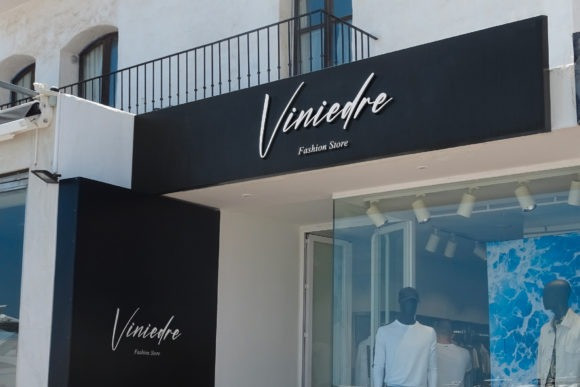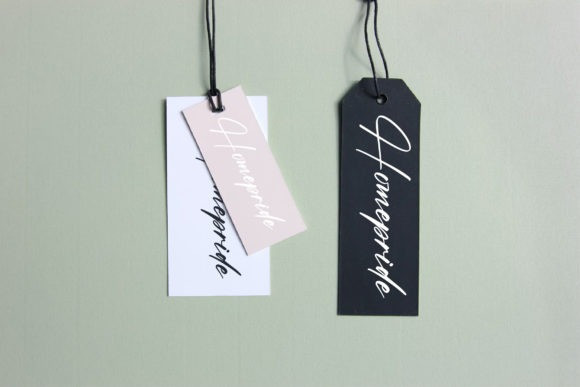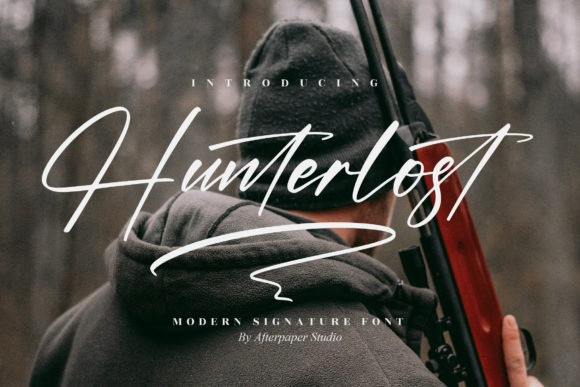
Hunterlost Font
Hunterlost Script Font is a lovely and delicate script font that exudes elegance and class. This font was particularly crafted for those who need a beautiful and refreshing look to their designs. Hunterlost is PUA encoded which means you can access all glyphs and swashes with ease!